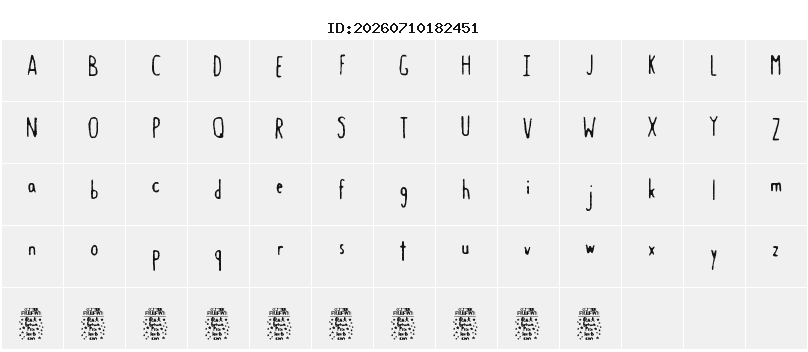
Gastro Intestinal Confl (Demo) Preview
• Font Name: Gastro Intestinal Confl (Demo)
• Full Font Name: Gastro Intestinal Confl (Demo)
• Version: Version 1.00 February 12, 2016, initial release
• Designer: Lauren C. Brown
About Gastro Intestinal Confl (Demo).ttf
Gastro Intestinal Confl (Demo).ttf is a modern, elegant sans-serif font designed for ultimate readability and visual harmony. Perfect for branding, headlines, web design, and print materials.